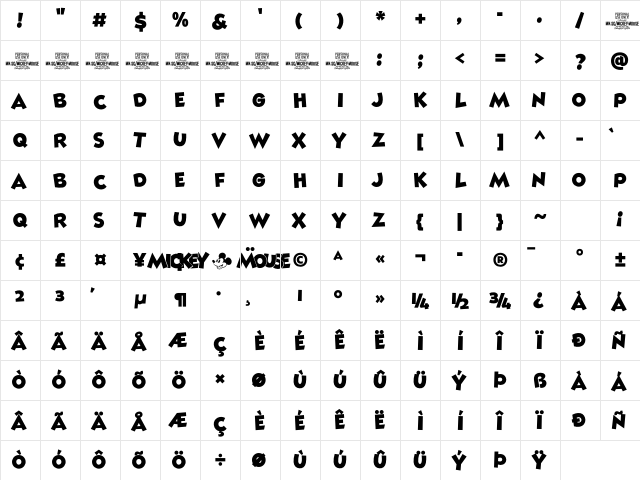
Mickey Mouse PERSONAL USE Regular Free Font
Mickey Mouse PERSONAL USE Regular
Foundry: Mans Greback
Designer: Mans Greback
Design Context for Mickey Mouse PERSONAL USE
Mickey Mouse PERSONAL USE is a composed and adaptable typeface that performs quietly and consistently across a wide range of design contexts.
Who designed the Mickey Mouse PERSONAL USE Regular font?